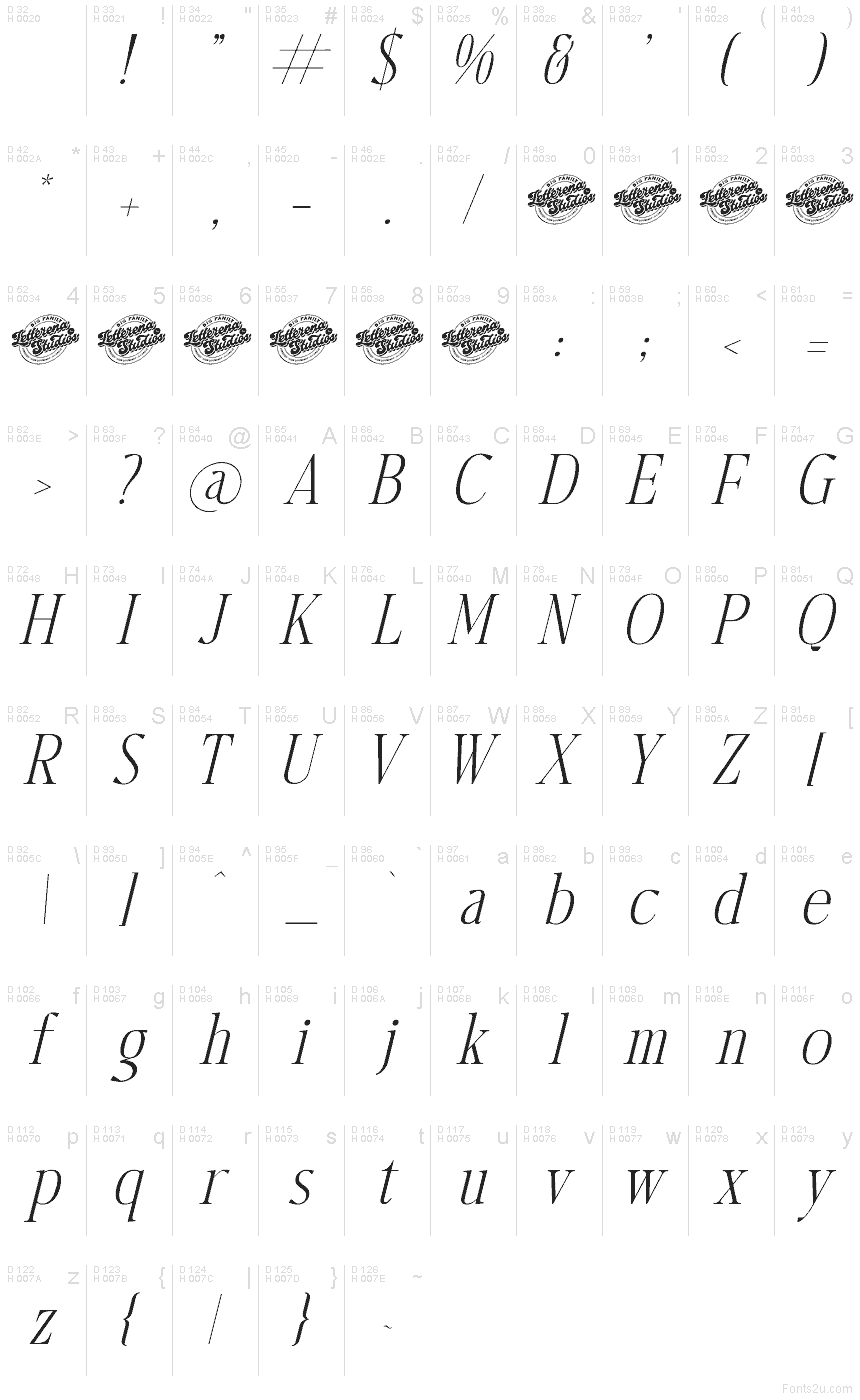
Harfterd DEMO VERSION Italic
Harfterd Italic font by Letterena Studio is a condensed serif font with an elegant and sophisticated look. The classic typeface combines an exquisite design with italicized letterforms suitable for a variety of projects. The owners aimed for timelessness and unique character, both of which are clearly present in the finished product that you can now experiment freely with.
Create perfect posters, magazines, newspapers, publications, or book covers. Give special occasions fashionable invitations and greeting cards while still using Harfterd Italic in your display designs. Fashion brands will also have the opportunity to elegantly present themselves through logotypes, business cards, or branding designs.